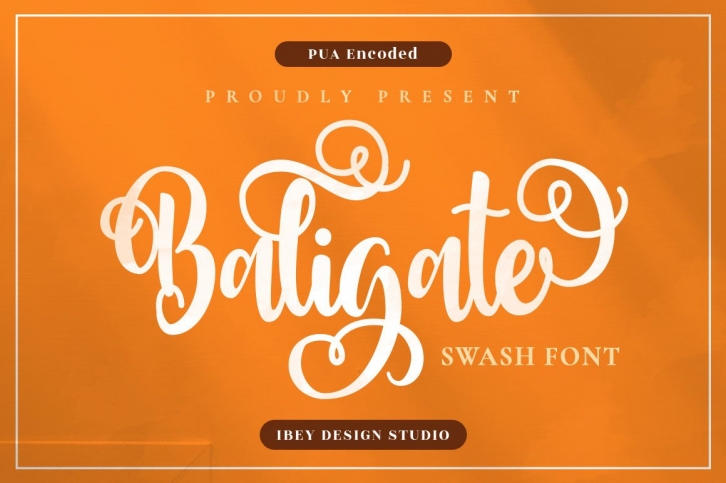
Baligate is a lovely and delicate script font that exudes elegance and class. This font was particularly crafted for those who need a beautiful and refreshing look to their designs.Â
Baligate is PUA encoded which means you can access all glyphs and swashes with ease!